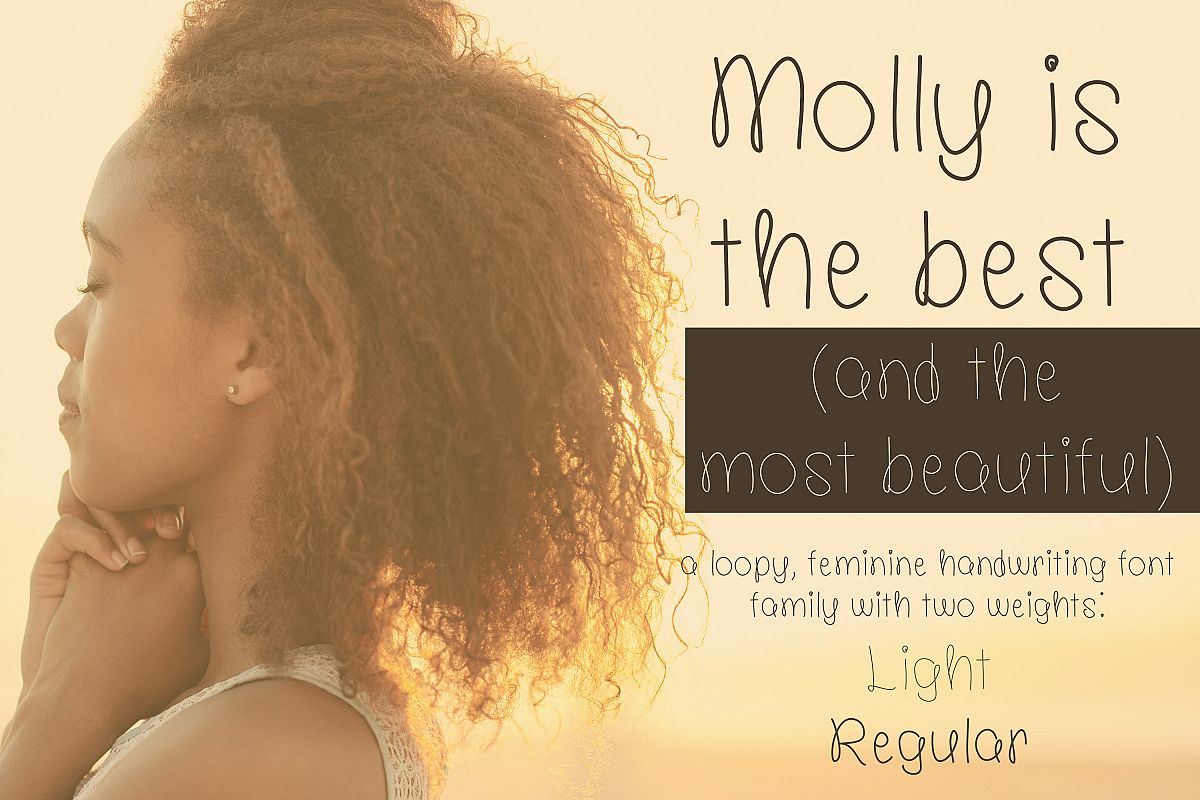
Molly is the Best
Molly is the Best - Regular
Molly is the Best - Thin
Molly is the best is a loopy, feminine handwriting font family with two weights: Light and regular. She's fun, whimsical, and perfect for lettering quotes, logos, and more!